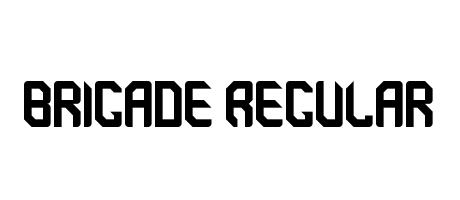
Brigade
By Bill Walker
Category  Display, Bold, Sans-serif, Condensed
Fundamental Brigade Condensed is a bold, sans-serif typeface. Its clean lines and consistent weight give it a modern, utilitarian feel. The condensed style makes it compact yet highly legible, suggesting efficiency and strength. The straightforward design is both professional and approachable. It's a font that commands attention without being overly aggressive.